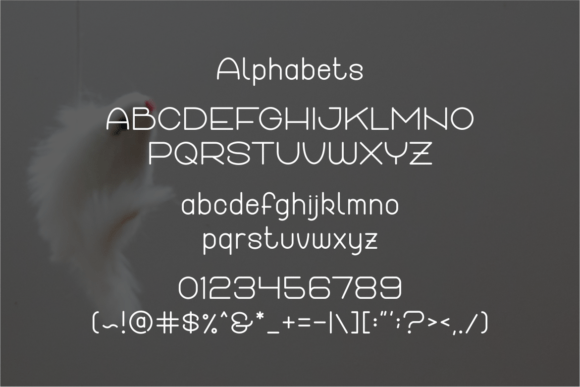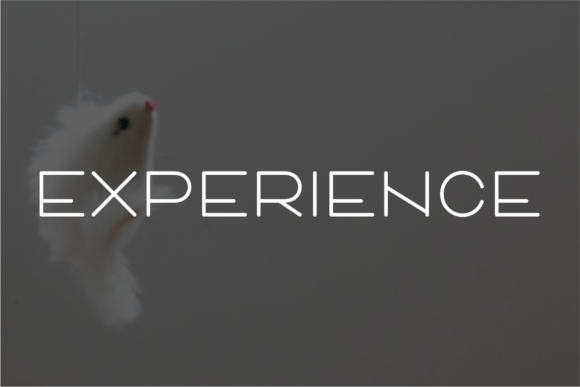
Introduction to Kelvin Nogue Font
Kelvin Nogue is the best sans serif font with line geometry creation.
Its soft and elegant shape is the hallmark of the sans serifs – softness and the right composition in processing words can give different effects The selection of letters can be the hallmark of a good job.